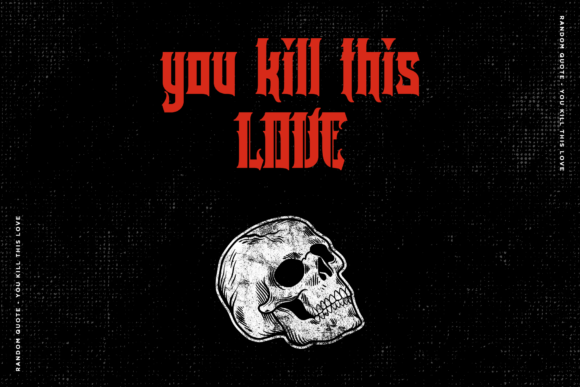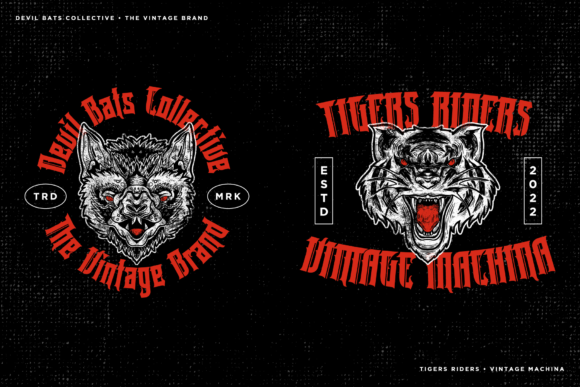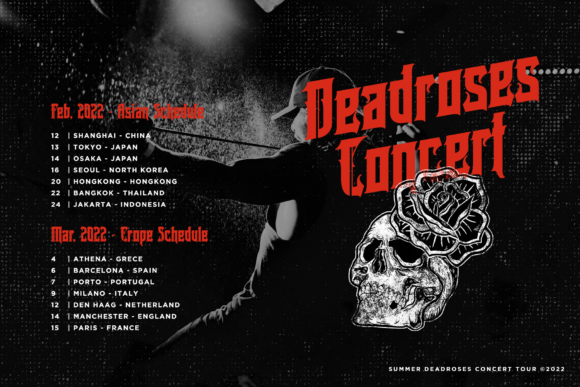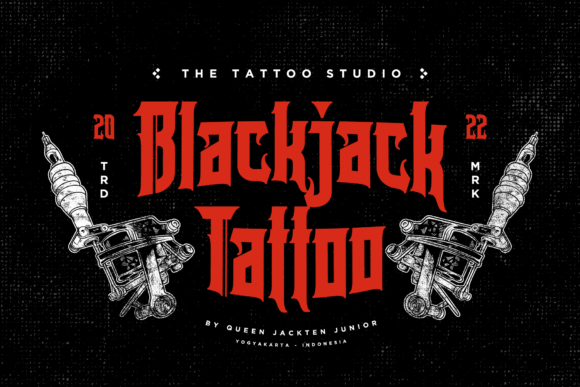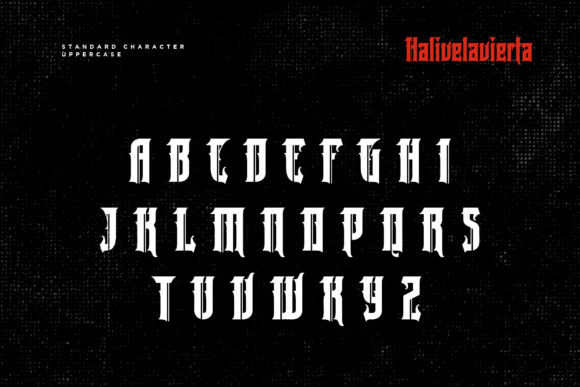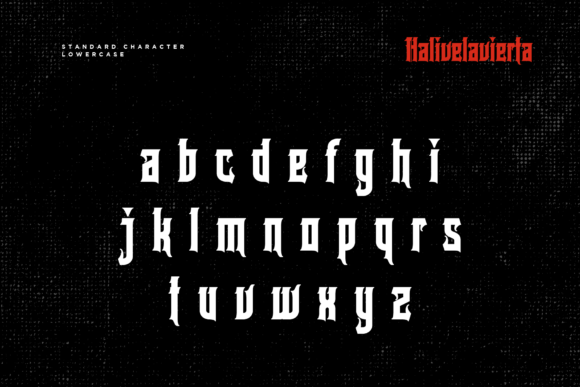
Introducing Halivelavierta Font: A Unique Blend of Blackletter and Serif
In the world of typography, fonts play a crucial role in conveying the tone and aesthetic of a design. For designers and crafters, finding the perfect font can be a daunting task. However, if you’re looking for a typeface that combines the elegance of serif fonts with the mystique of blackletter fonts, look no further than Halivelavierta Font. This unique font is a blend of blackletter and serif, resulting in a typeface with a slightly gothic feel, vintage, yet suitable for modern designs.
The Inspiration Behind Halivelavierta Font
Halivelavierta Font is a creative combination of two distinct typography styles: blackletter and serif. Blackletter fonts, known for their dramatic and ornate appearance, are often associated with medieval manuscripts and Gothic architecture. Serif fonts, on the other hand, are characterized by their classic and elegant look, often used in formal and traditional designs. By merging these two styles, Halivelavierta Font offers a fresh and distinctive take on typography.
Key Features of Halivelavierta Font
So, what makes Halivelavierta Font stand out from other typefaces? Here are some of its key features:
- Unique Blend of Styles: Halivelavierta Font seamlessly combines the ornate details of blackletter fonts with the sophistication of serif fonts, creating a truly unique typeface.
- Slightly Gothic Feel: The font’s blackletter influence gives it a slightly Gothic feel, adding a touch of mystery and elegance to any design.
- Vintage yet Modern: Halivelavierta Font’s vintage undertones make it perfect for designs that require a classic touch, while its clean lines and simplicity ensure it remains suitable for modern designs.
- High Versatility: This font is highly versatile and can be used for a wide range of design projects, including branding, packaging, posters, and more.
Uses of Halivelavierta Font
Halivelavierta Font is an incredibly versatile typeface that can be used in various design projects. Here are some ideas to get you started:
- Branding and Logo Design: Create a lasting impression with Halivelavierta Font’s unique and elegant design, perfect for luxury brands, fashion labels, and more.
- Packaging Design: Add a touch of sophistication and elegance to your packaging designs with this versatile font.
- Poster Design: Make a statement with Halivelavierta Font’s bold and eye-catching design, ideal for posters, flyers, and brochures.
- Digital Design: Use Halivelavierta Font in digital designs, such as website headers, social media graphics, and more.
Tips for Using Halivelavierta Font
To get the most out of Halivelavierta Font, here are some tips to keep in mind:
- Pair with Neutral Fonts: Pair Halivelavierta Font with neutral fonts to create a balanced and harmonious design.
- Experiment with Colors: Try out different color schemes to find the perfect combination that complements the font’s unique design.
- Play with Sizes: Experiment with different font sizes to create visual hierarchy and add depth to your design.
Halivelavierta Font is a game-changer for designers and crafters looking for a unique and versatile typeface. Its blend of blackletter and serif styles creates a distinctive design that’s both vintage and modern. With its high versatility and elegant design, Halivelavierta Font is perfect for a wide range of design projects. So, why settle for ordinary fonts when you can make a statement with Halivelavierta Font?